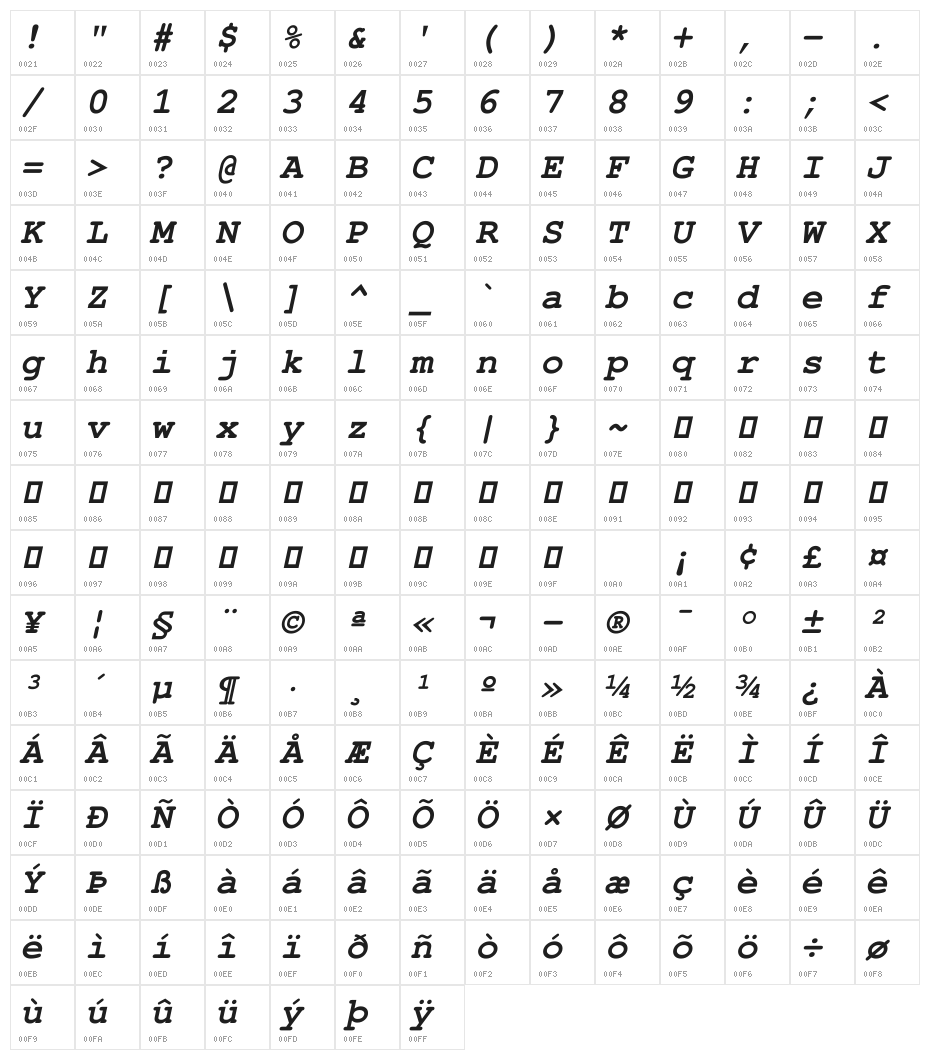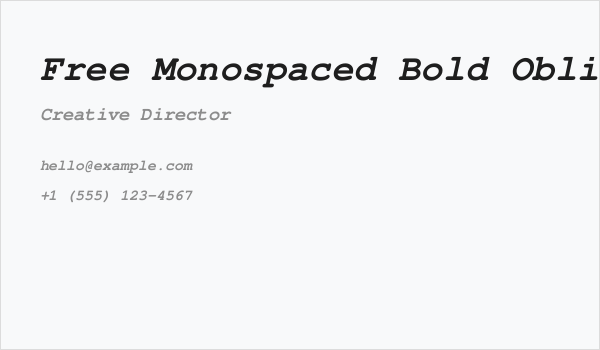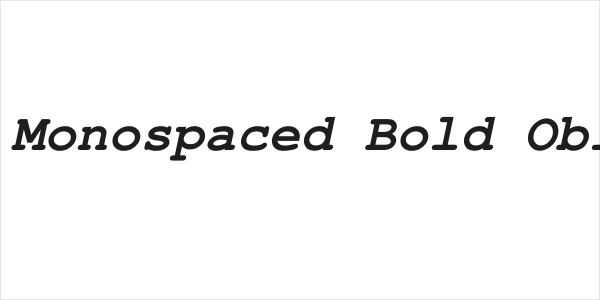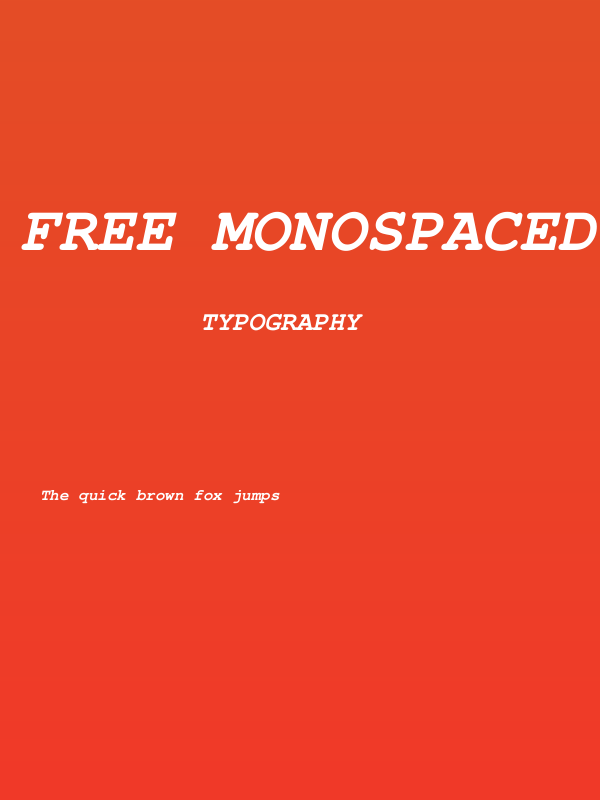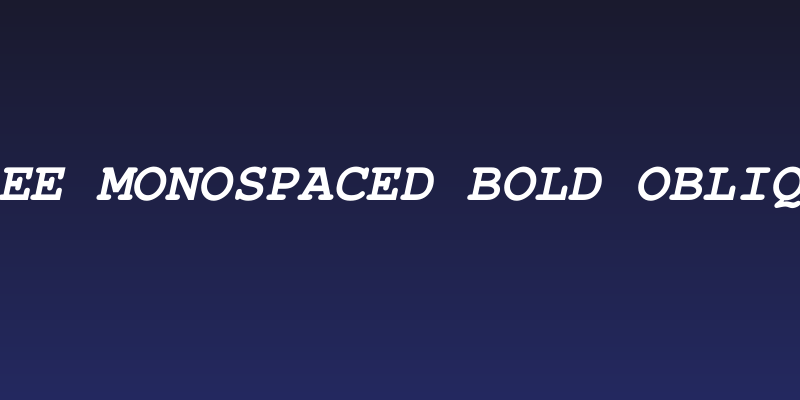
Free Monospaced Bold Oblique Font
Free Monospaced Bold Oblique Description
This font features a bold and oblique style, characterized by its monospaced design where each character occupies the same amount of horizontal space. The letters have a consistent slant, giving a dynamic and forward-moving appearance. The bold weight ensures strong visibility and impact, making it suitable for attention-grabbing text. The uniformity in character width is ideal for coding and tabular data, where alignment is crucial. The font maintains clarity and readability, with a modern yet slightly retro aesthetic due to its slanted form. The characters are well-defined, with rounded edges that soften the overall look, balancing the boldness with a touch of elegance.
| Use Case | Coding, Technical documentation, Creative design |
| Proposed Projects | Ideal for coding environments, technical documentation, and any project requiring precise alignment. Also suitable for creative designs that need a bold, modern typeface. |